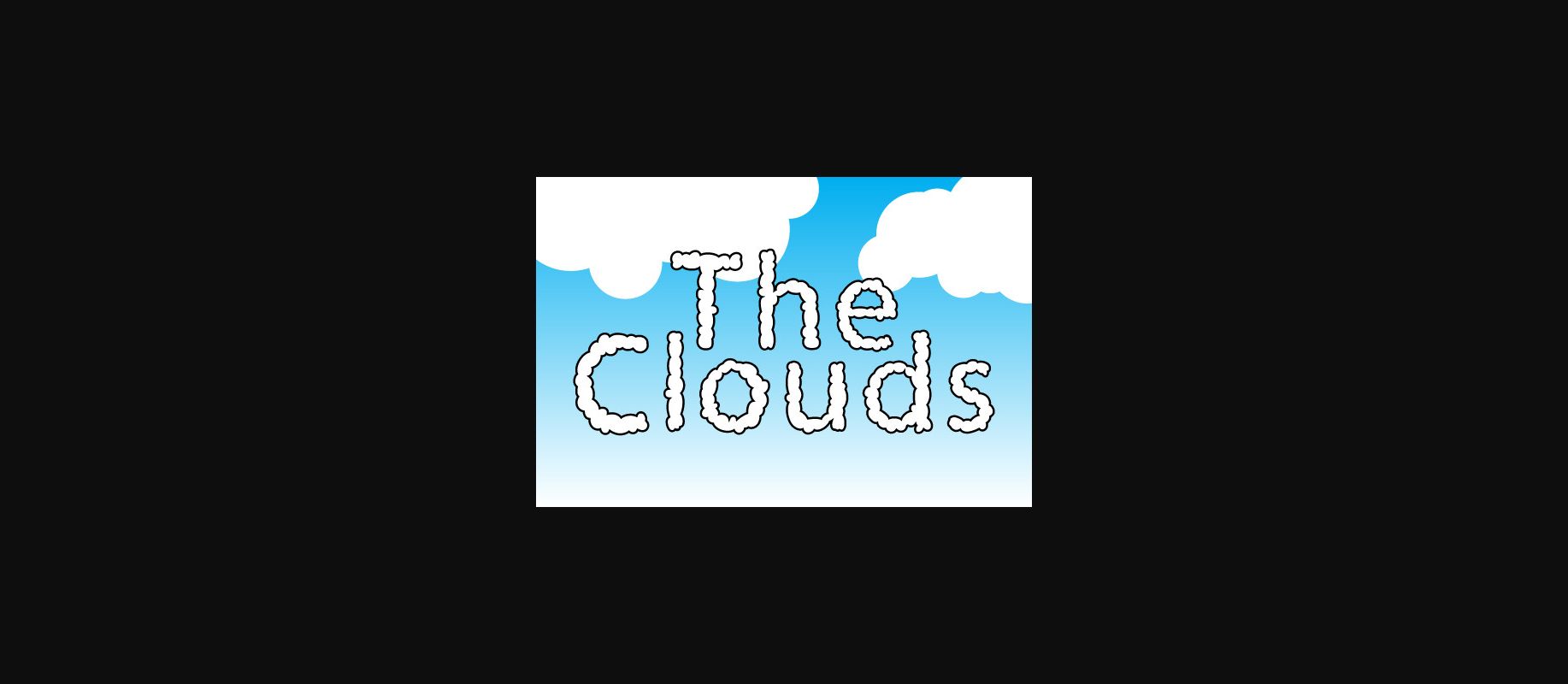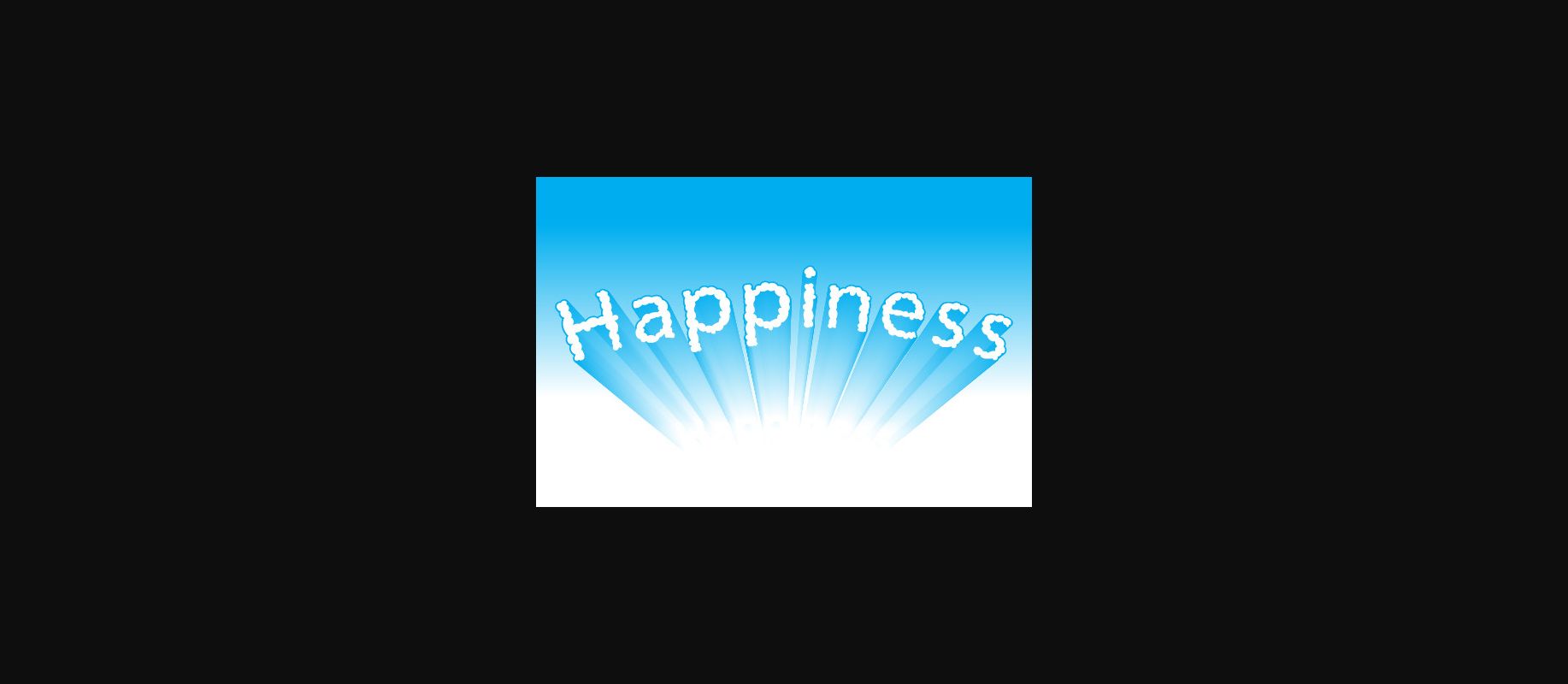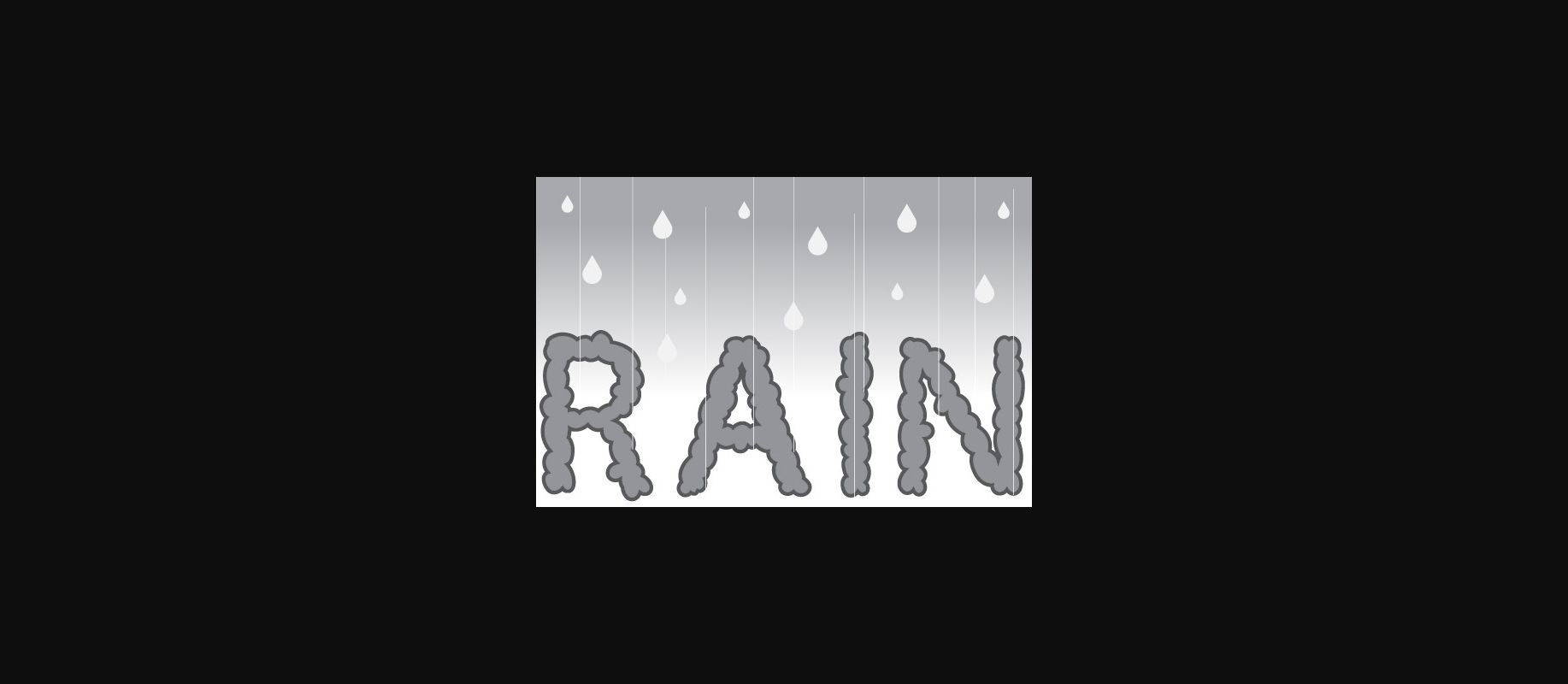
Thecloud Font
About Thecloud Font
The clouds is a friendly decorative font that features letters with cloud-like shapes, giving it a playful and dreamy quality. Its whimsical curves and soft edges make it perfect for designs that need a touch of lightheartedness and creativity, while its unique character adds a distinctive touch that’s sure to stand out. Perfect for children’s books, social media graphics, and more.